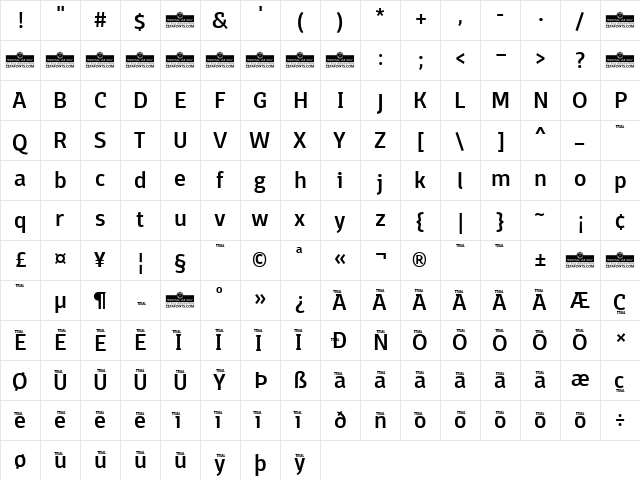
Domotika Trial Medium
| Foundry | Studio Kmzero |
| Designer | Cosimo Lorenzo Pancini |
Design Context for Domotika Trial Typeface
Domotika Trial is a composed and adaptable typeface that performs quietly and consistently across a wide range of design contexts.